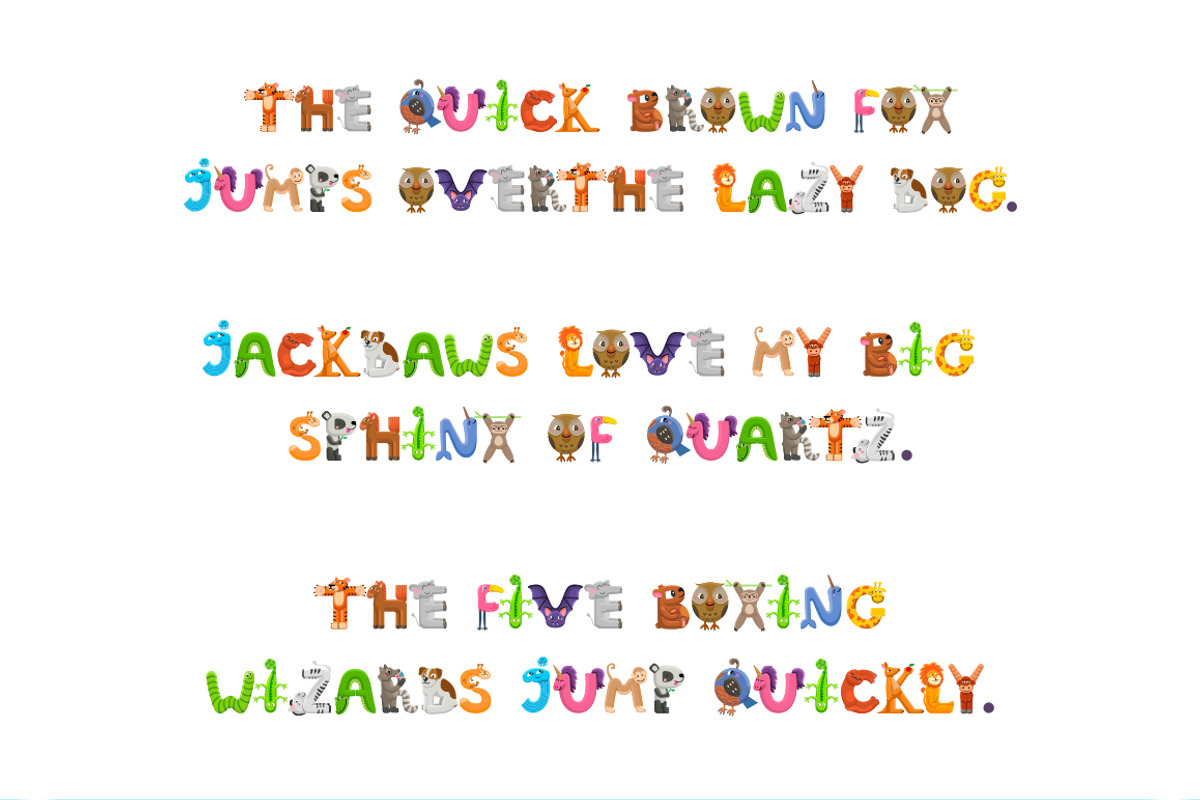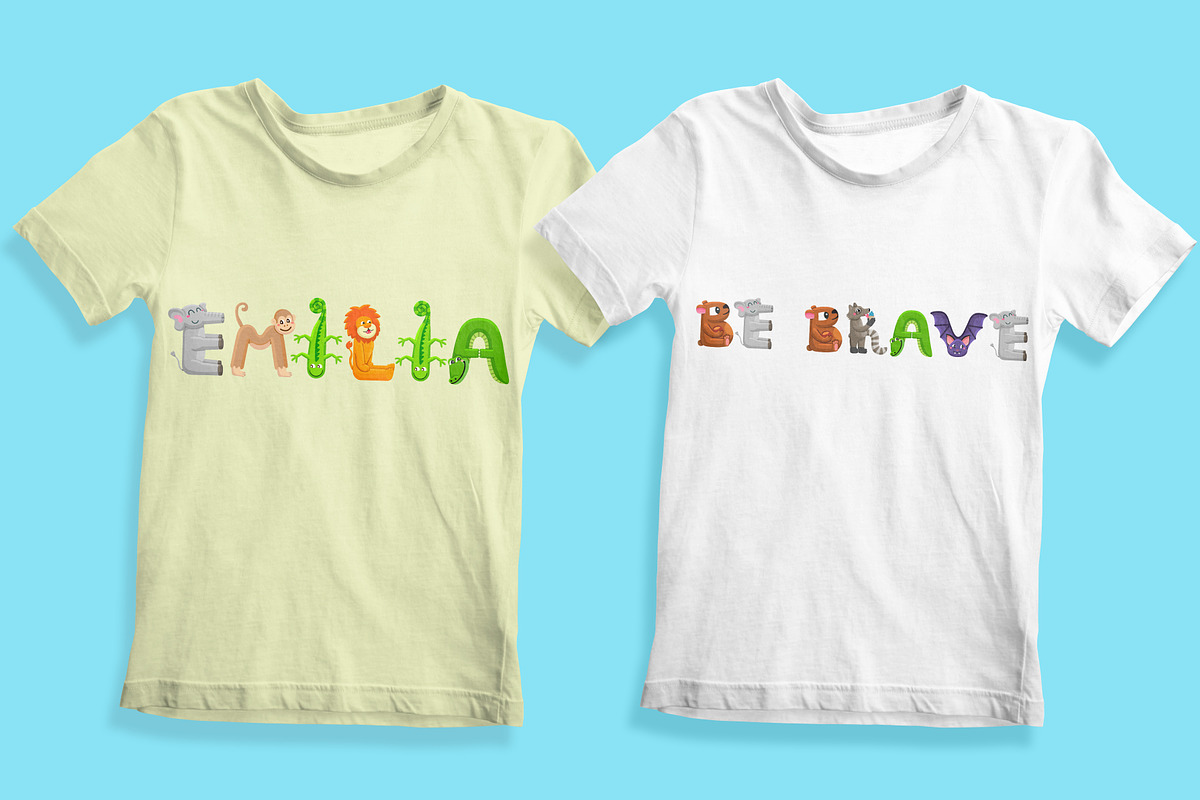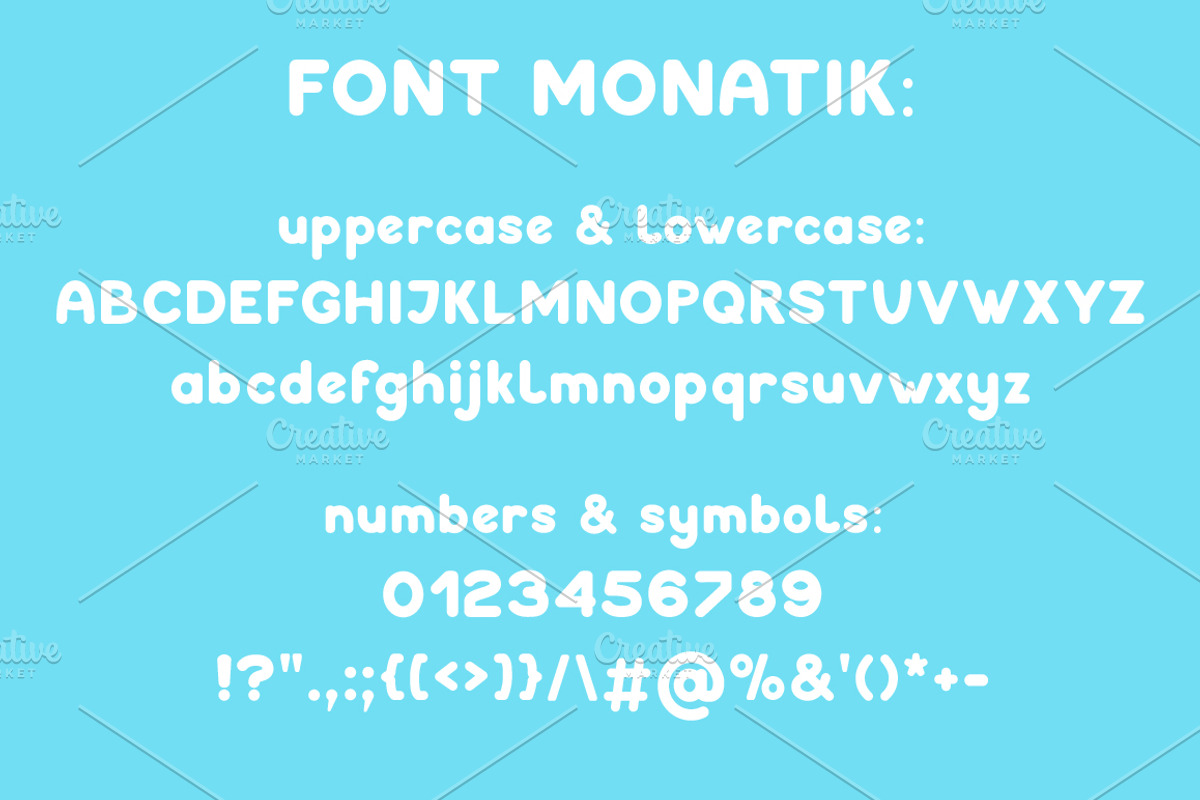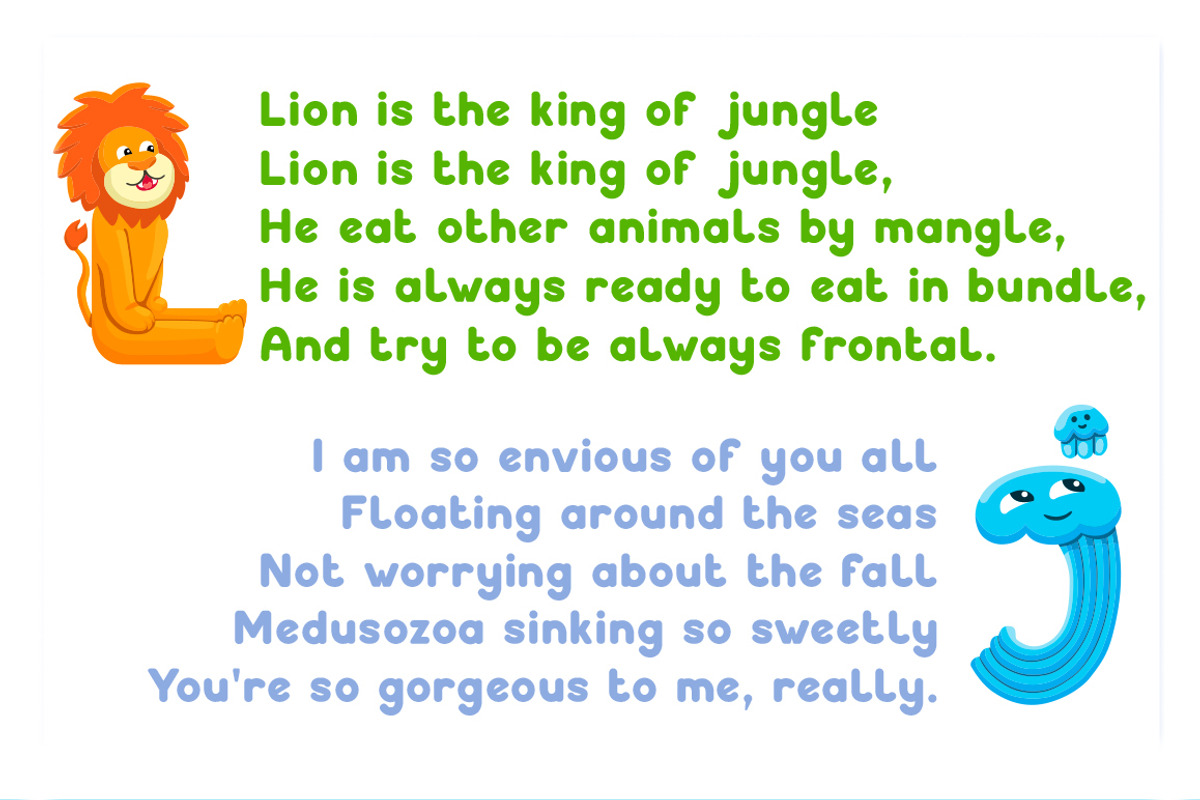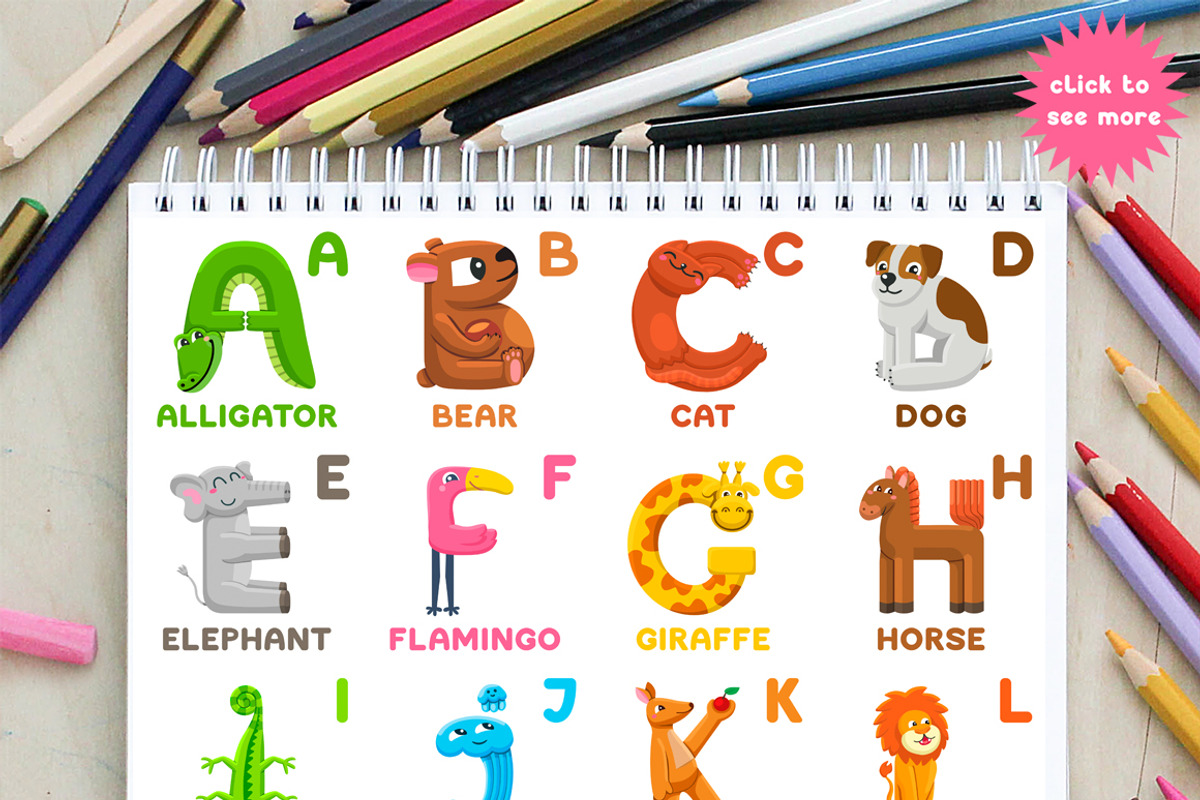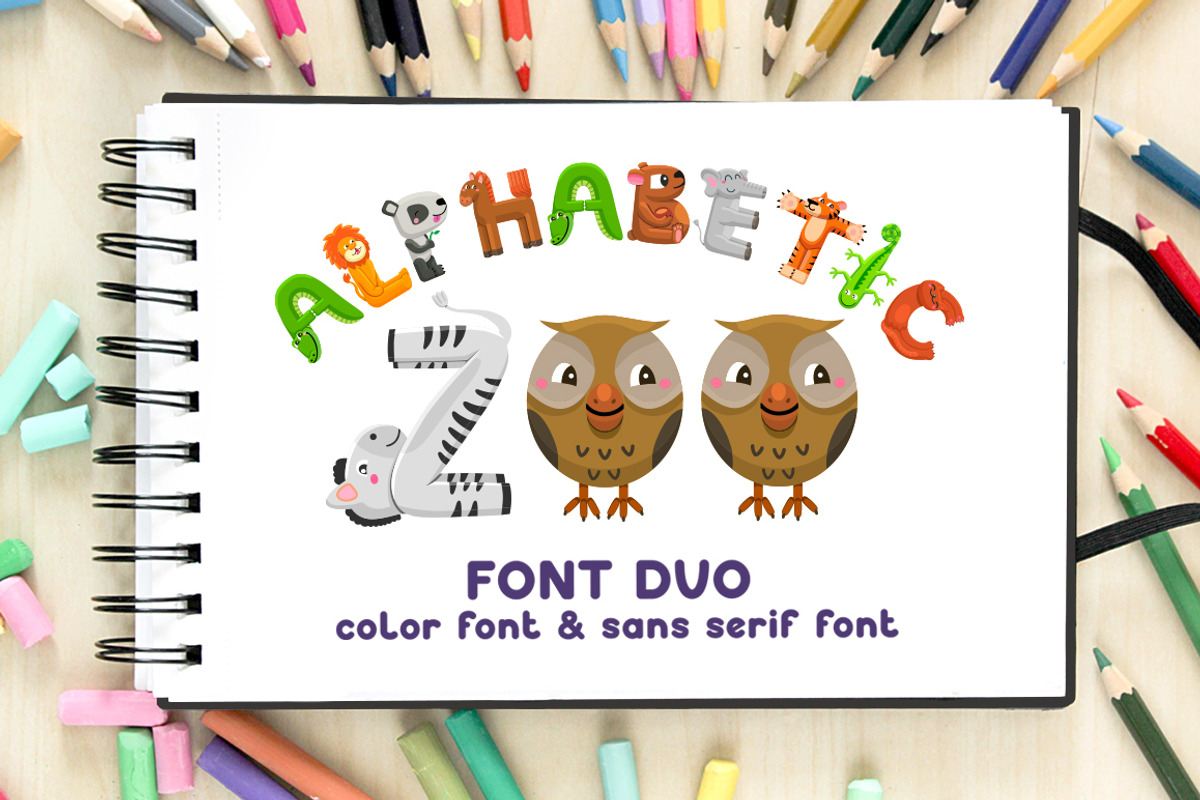
Alphabetic Zoo - font duo
Hey guys! I'm happy to introduce my first font duo AlphabeticZOO. This font pair includes very cute and funny color font AlphabeticZoo and simply sans serif font Monatik. They perfectly match one another. Every letter of color font AlphabeticZoo is a super cure illustration of animal. You can use this font duo for creation of excellent projects: t-shirt design, card design, art projects, prints, invitations, wallpaper, scenery, posters, bags, wallart, logos, quotes, blogs, website, banners and more.